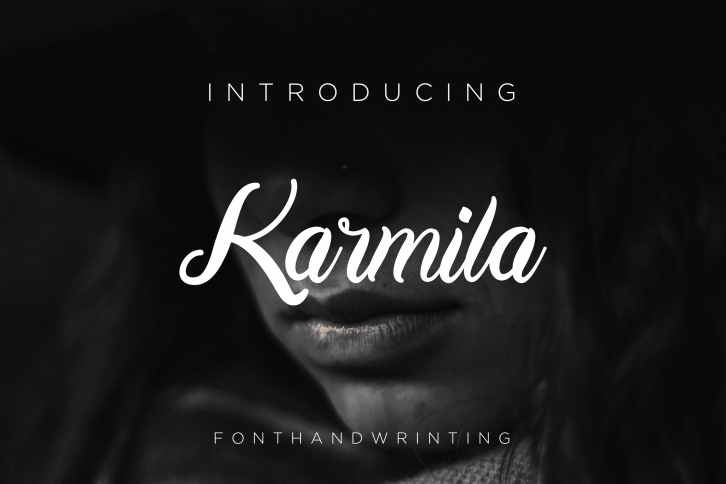
Karmila Script is a beautiful font that was designed by Fiqiart. It's a great choice for designers and creatives who need such a font. It was released on March 7, 2020 and the file size is 4.5 MB. Karmila Script may give a more youthful, expressive and casual look to your project. It is a very beautiful, refined, elegant, and high-quality font.